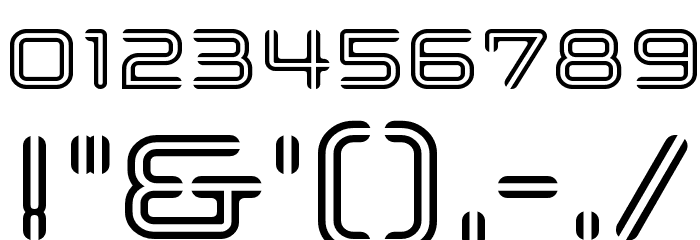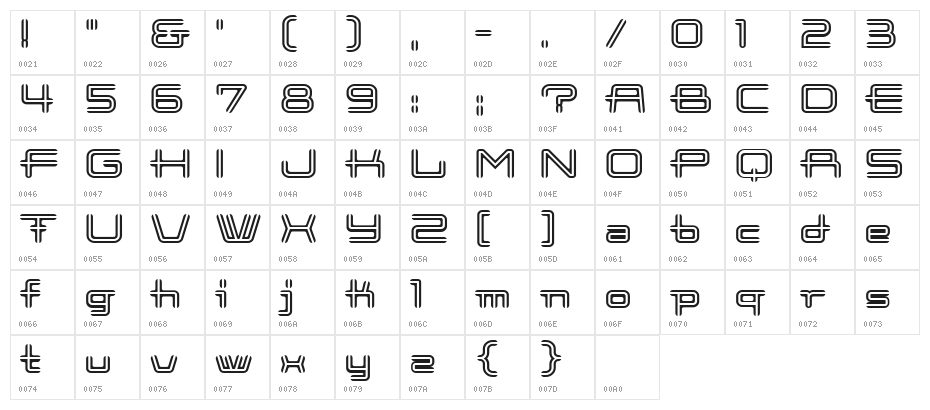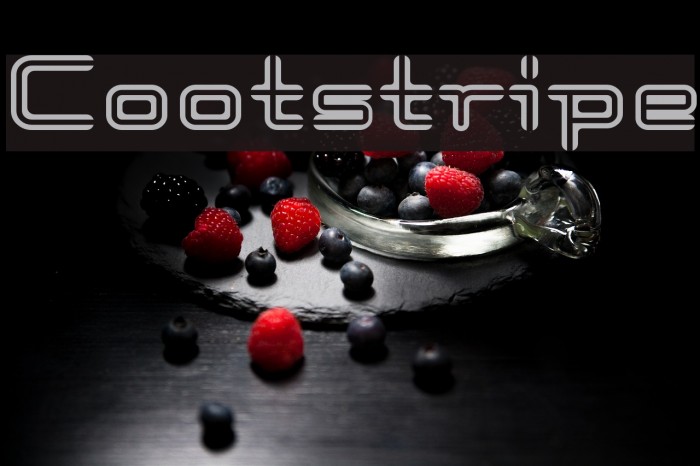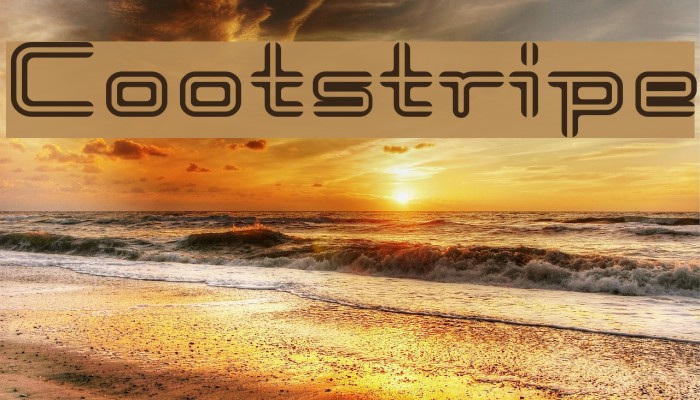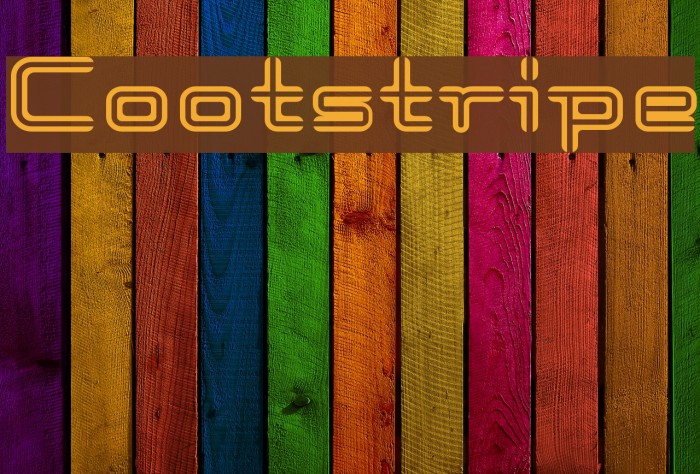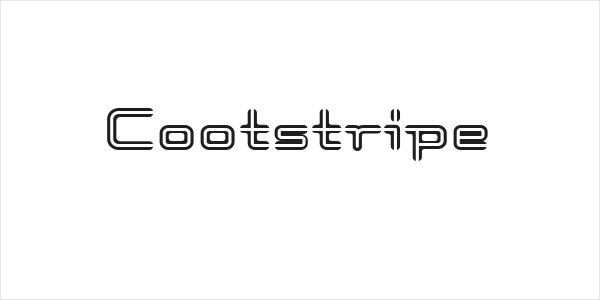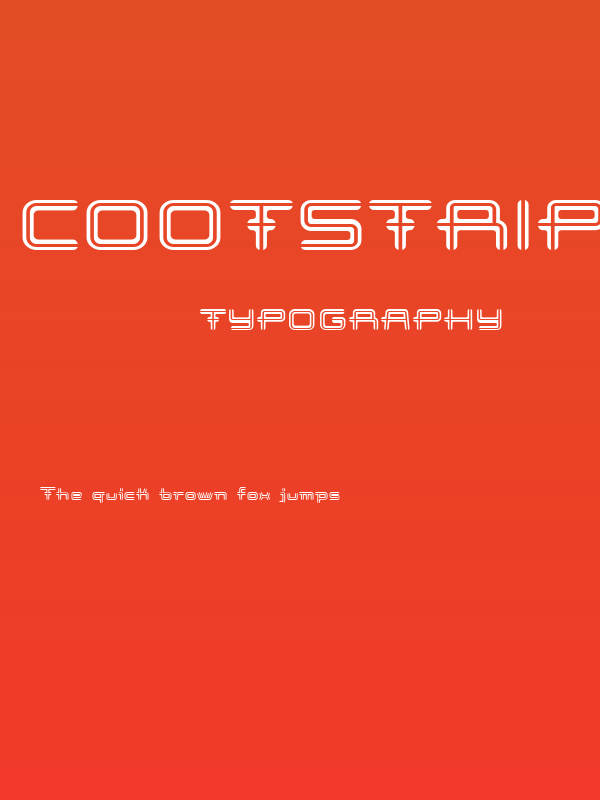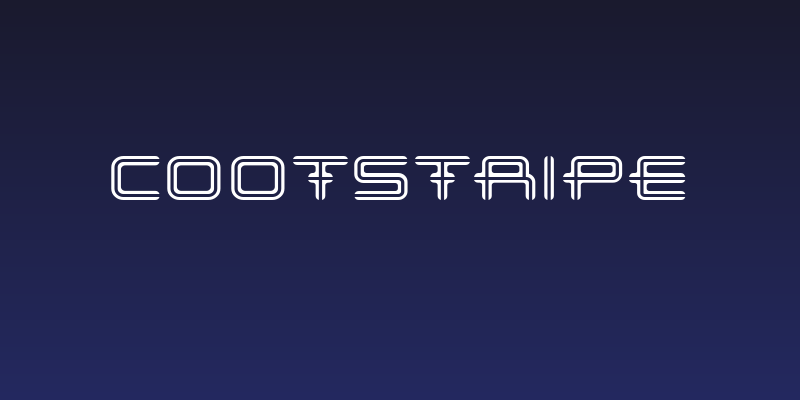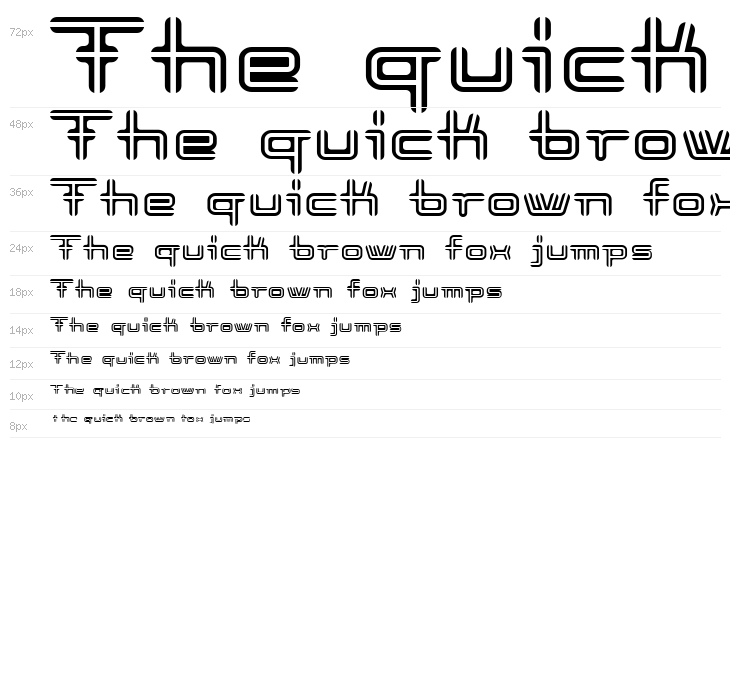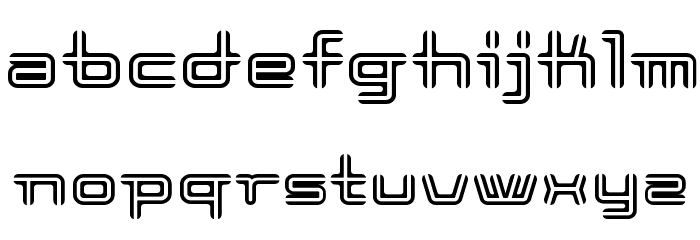
Cootstripe Font
Cootstripe Description
This font features a futuristic and geometric design with a distinct double-line structure that creates a sense of depth and dimension. The characters are uniformly styled with sharp angles and clean lines, giving it a modern and technological appearance. The uppercase and lowercase letters maintain a consistent style, while the numerals and special characters complement the overall aesthetic. The font's unique design makes it stand out, ideal for projects requiring a bold and innovative look.